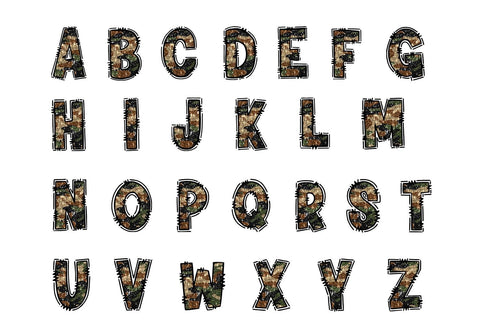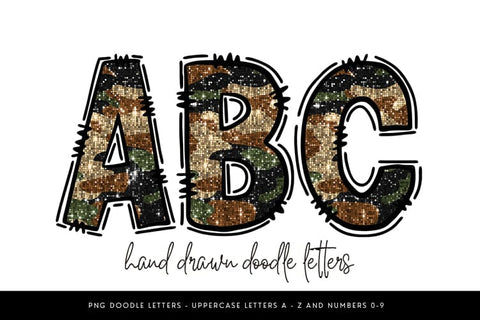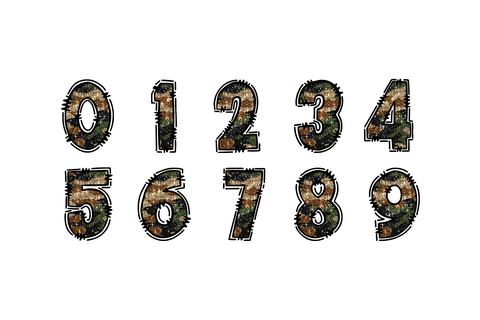
Glitter Camo Alphabet PNG, Sparkle Camouflage Doodle Letters
This glitter camo doodle alphabet is made for bold country vibes and creative projects that pack a punch. With sketchy black outlines and a sequin-style camouflage fill, this high-res PNG pack includes uppercase A–Z and numbers 0–9. Perfect for hunting season crafts, country girl tumblers, military gifts, and rustic digital designs.
✦ Uppercase letters A-Z
✦ Numbers 0 - 9